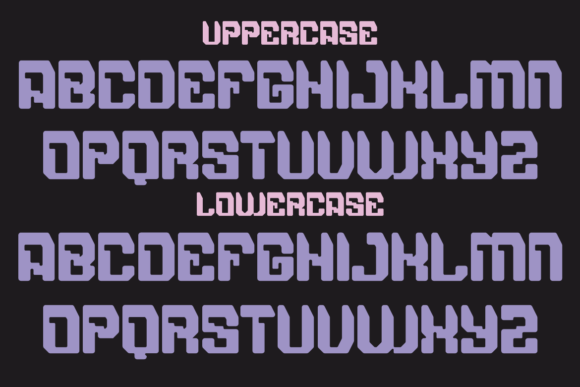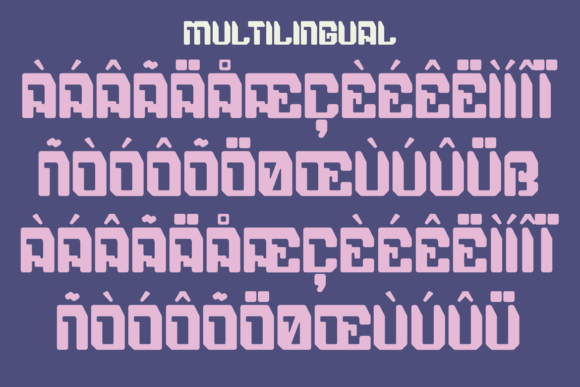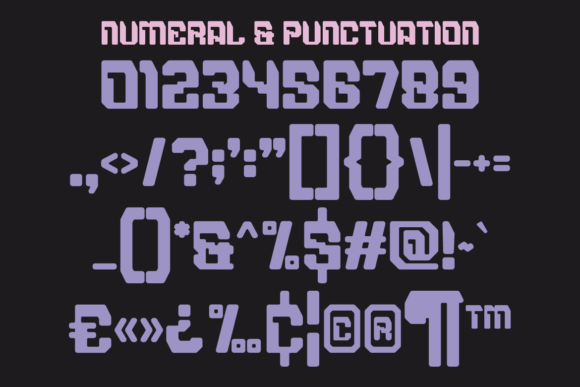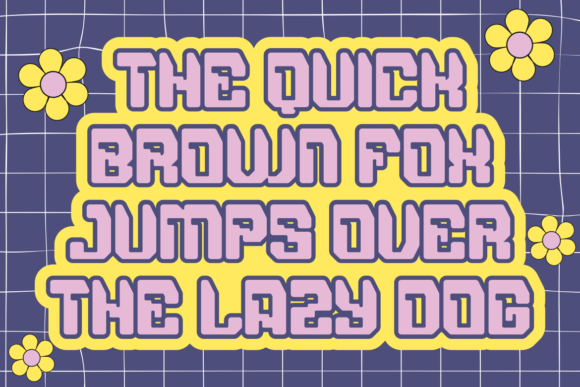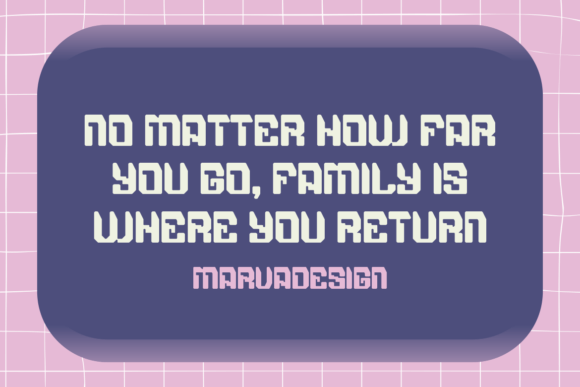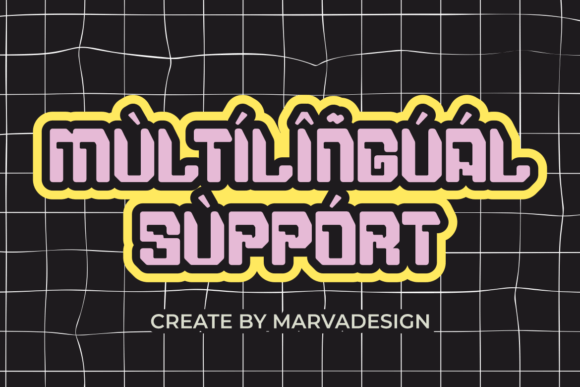
Introducing Digital Moneter Font: The Ultimate Modern Techno Y2K Font
In the ever-evolving world of digital design, a font can make all the difference in creating a lasting impression. That’s why we’re excited to introduce our latest creation: Digital Moneter Font – a modern techno Y2K font that’s authentic, versatile, and perfect for a wide range of branding projects. Whether you’re a designer, craftsperson, or simply someone who appreciates great typography, this font is sure to captivate your audience.
What is Digital Moneter Font?
Digital Moneter Font is a carefully crafted display font that embodies the essence of modern technology and the Y2K aesthetic. Its sleek lines, futuristic curves, and bold structure make it an outstanding choice for any project that requires a touch of innovation and sophistication. This font is not just a collection of letters; it’s a statement piece that can elevate your brand’s visual identity to new heights.
Key Features of Digital Moneter Font
- Modern Techno Y2K Style: The font boasts a contemporary look that’s reminiscent of the Y2K era, making it perfect for projects that require a retro-futuristic vibe.
- Authentic Display Font: With its unique structure and carefully designed letterforms, Digital Moneter Font is ideal for headlines, titles, and short texts that demand attention.
- Versatile and Adaptable: This font is suitable for a wide range of applications, from logo design and template creation to product branding and more.
- Easy to Read and Recognize: Despite its futuristic design, Digital Moneter Font remains highly legible, ensuring that your message is conveyed clearly and effectively.
Use Cases for Digital Moneter Font
The possibilities are endless when it comes to using Digital Moneter Font. Here are a few ideas to get you started:
- Logo Design: Create a memorable logo that stands out from the crowd with this unique font.
- Template Design: Use Digital Moneter Font to create stunning templates for presentations, brochures, or social media graphics.
- Product Branding: Give your products a modern and tech-savvy look with this font.
- Advertising and Marketing Materials: Make your ads and promotional materials more engaging and attention-grabbing.
Why Choose Digital Moneter Font?
In a world where first impressions matter, Digital Moneter Font offers a unique opportunity to make your mark. Here are a few reasons why you should consider adding this font to your collection:
- Unique and Exclusive: Digital Moneter Font is a one-of-a-kind creation that will set your designs apart from the rest.
- High-Quality Design: Every letterform has been meticulously designed to ensure a premium look and feel.
- Time-Saving: With Digital Moneter Font, you can quickly create stunning designs without spending hours on typography.
Digital Moneter Font is more than just a font – it’s a design statement that can transform your branding projects and elevate your visual identity. With its modern techno Y2K style, versatility, and high-quality design, this font is an essential tool for designers, craftspersons, and anyone looking to make a lasting impression. Don’t miss out on the opportunity to take your designs to the next level with Digital Moneter Font.